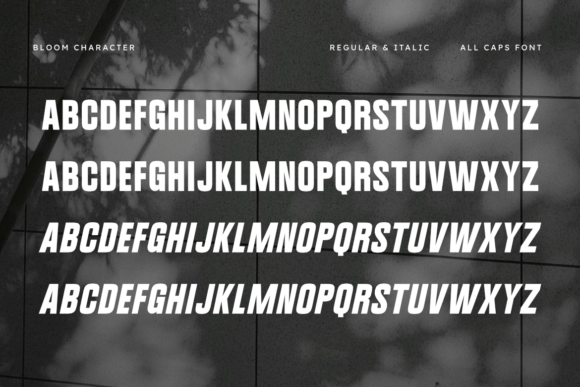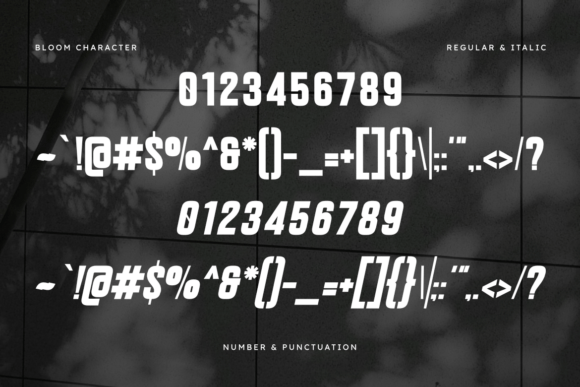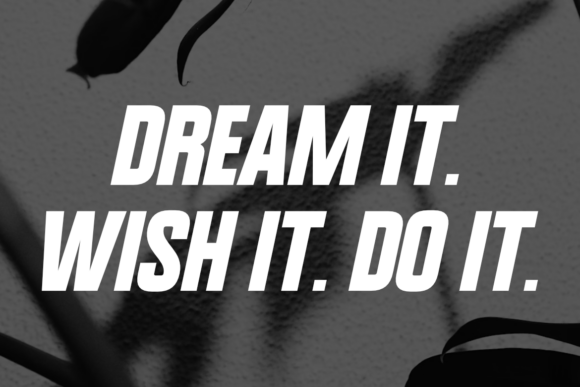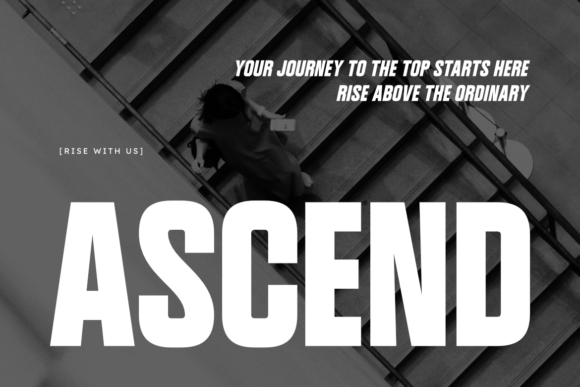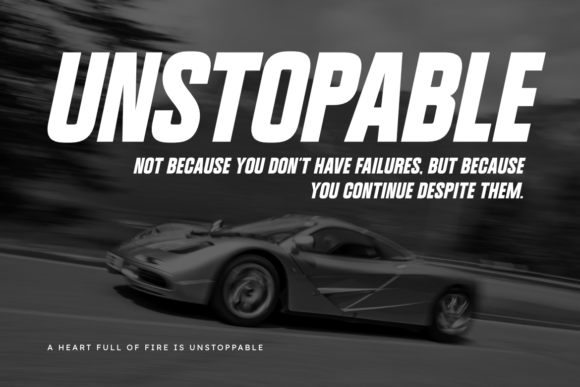
The Bloom Font: A Modern Bold Condensed Sans Serif for Maximum Impact
What is Bloom Font?
Bloom is a bold, high-impact modern bold condensed sans serif font designed for maximum visibility and a clean, contemporary aesthetic. Its solid weight and powerful structure make it an exceptional choice for dominant headlines, professional branding, social media graphics, and large-scale poster designs.
This versatile all-caps typeface ensures your message is delivered with confidence and clarity, providing a sleek yet authoritative look that is perfect for any modern creative project across digital and print media.
- ✅ Extremely versatile and can be used across various platforms, from digital to print media.
- ✅ Clean and modern aesthetic that screams professionalism.
- ✅ Bold and condensed design makes it perfect for headlines and titles.
- ✅ Easy to read, even at smaller sizes.
- ⚠️ Limited use for body text due to its bold nature.
- ⚠️ May not be suitable for projects requiring a more elegant or refined look.
The Story Behind Bloom Font
Bloom font was designed with the goal of creating a bold, yet clean and modern sans-serif font. The designer aimed to craft a typeface that would be perfect for headlines, titles, and dominant text elements. Inspired by the urban landscape and modern architecture, Bloom font embodies the spirit of contemporary design.
| Font Name | Bloom Font |
| Author | Funtype Co. |
Q: What is the best use for Bloom font?
A: Bloom font is best used for dominant headlines, professional branding, social media graphics, and large-scale poster designs.
Q: Can I use Bloom font for body text?
A: While Bloom font is legible, its bold nature makes it less suitable for body text. It’s best used for titles and headlines.
Q: Can I use Bloom font across different platforms?
A: Yes, Bloom font is a versatile typeface that can be used across various platforms, from digital to print media.